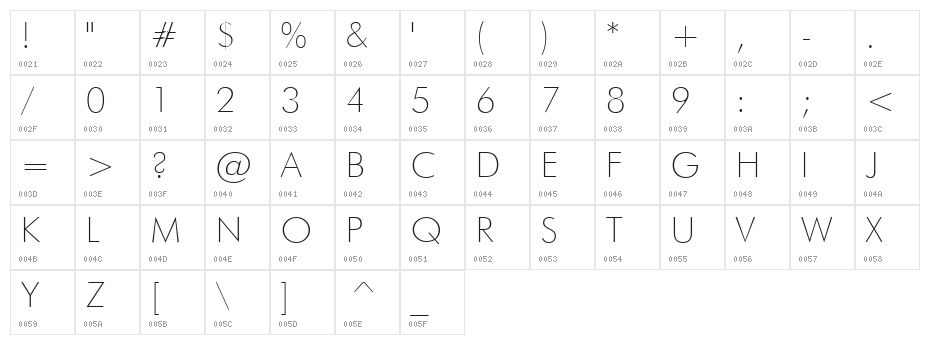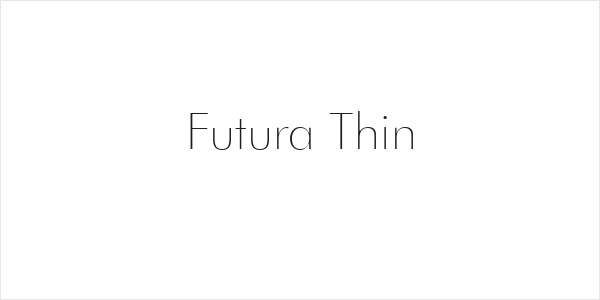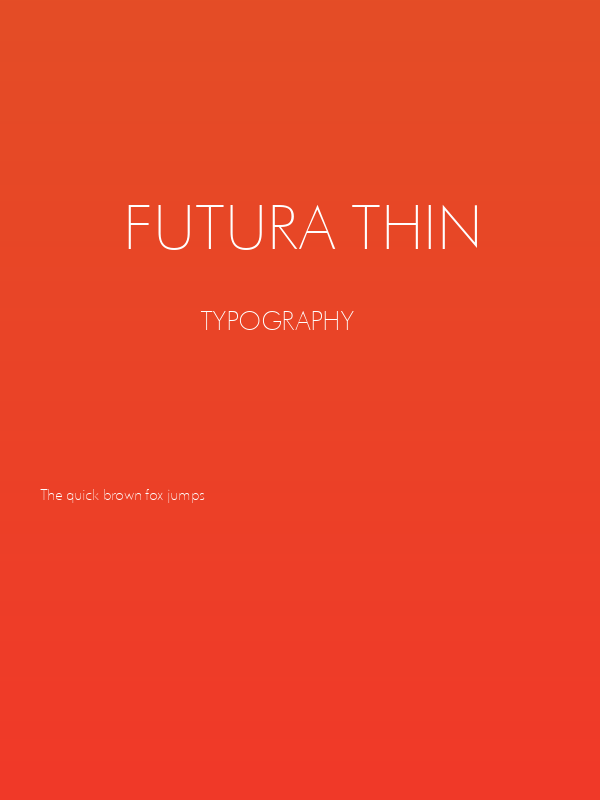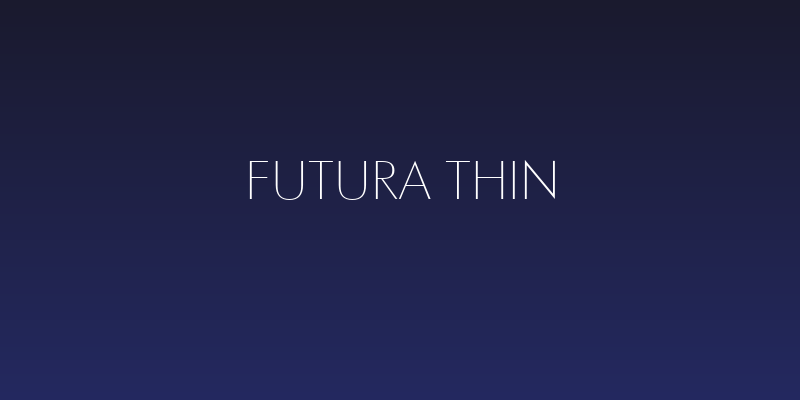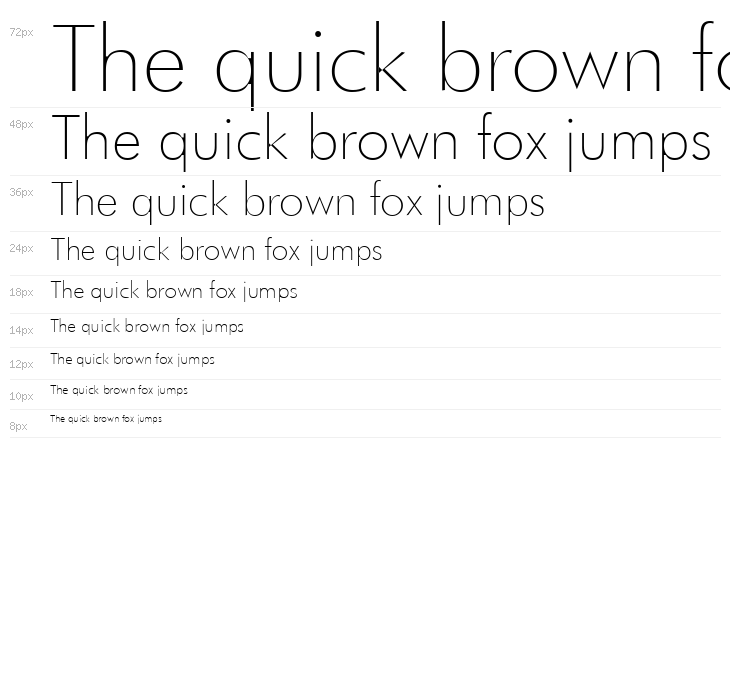
Futura Thin Font
Futura Thin Description
This font is a sleek and modern sans-serif typeface characterized by its thin, clean lines and geometric shapes. The uniformity of the strokes and the absence of serifs give it a minimalist and contemporary appearance. The uppercase letters are tall and elegant, while the lowercase letters maintain a consistent height, contributing to a harmonious and balanced look. The numerals are clear and easy to read, making them suitable for various applications. Special characters are well-defined, enhancing the font's versatility. Its simplicity and clarity make it ideal for conveying a sense of modernity and sophistication.